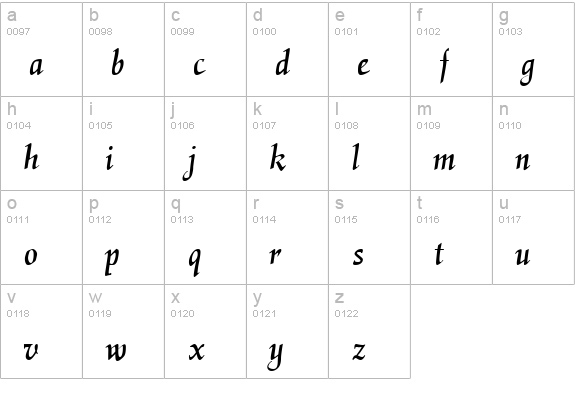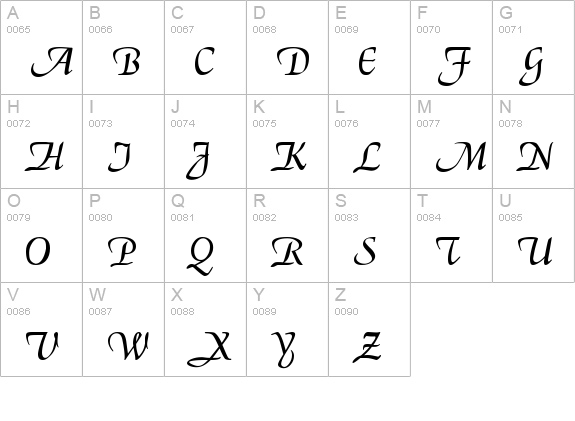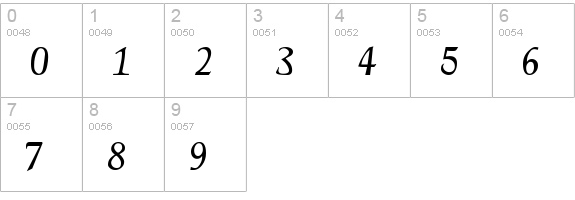
Introducing Deloise font, a stunning typeface that exudes elegance and sophistication. With its delicate curves and stylish letterforms, Deloise is the perfect choice for adding a touch of class to your design projects. This versatile font is ideal for creating logos, invitations, branding materials, and more. The best part? Deloise font is completely free to download at FontsMarket.com. Whether you're a professional designer or a hobbyist looking to elevate your creations, Deloise font is a must-have in your font collection. Don't miss out on this amazing opportunity to enhance your designs with the beauty and charm of Deloise font. Download it today and let your creativity shine!